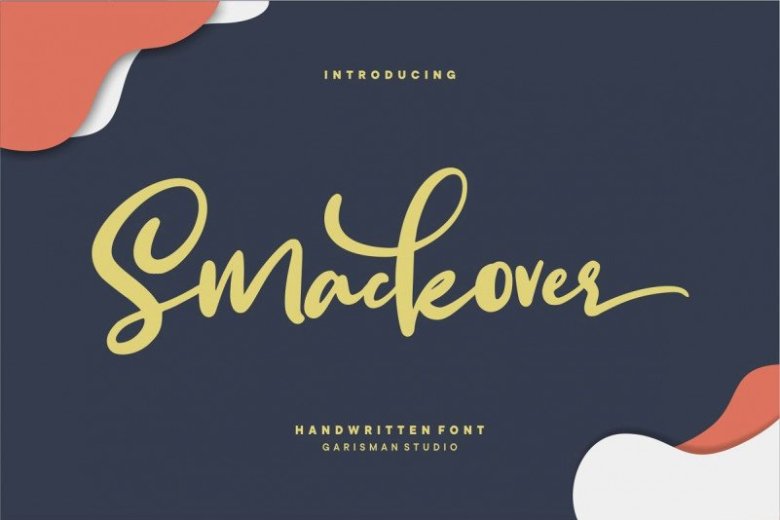
Smackover Handwritten Font
A Handwritten Font with natural scratches. It was simple and fun to create preview images because this font is just so versatile. Introducing Smackover Font!  It is design and shared by Garisman Std. It is made natural handwritten with the ending swashes on Stylistic Set 01. With the unique Opentype in it and the ligature will add aesthetic value to your design product. Available in this file are Hellotropica Swash which you can unite into an amazing design.